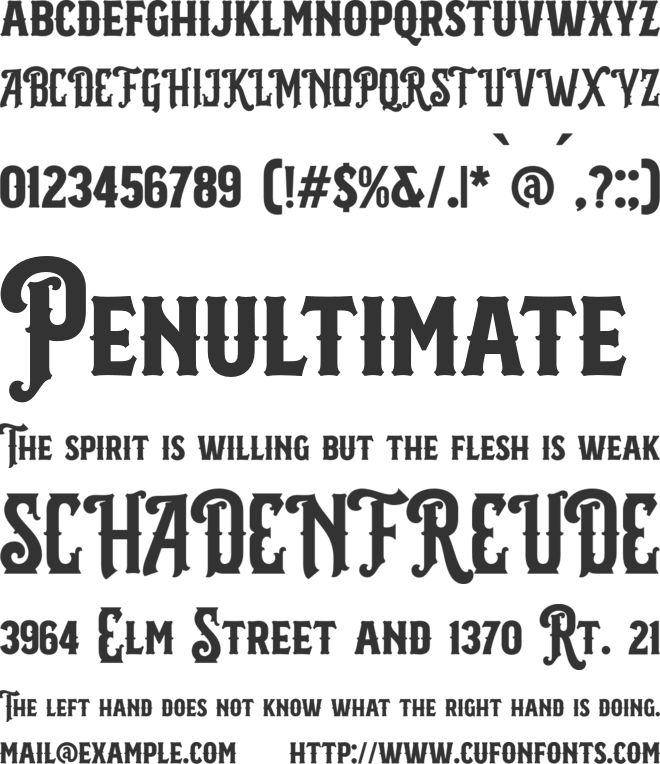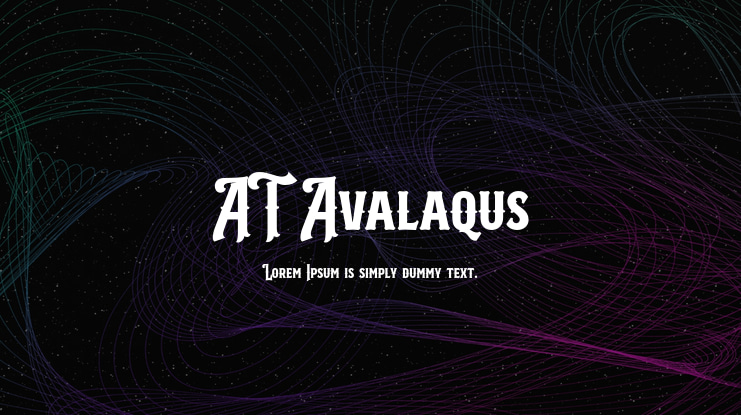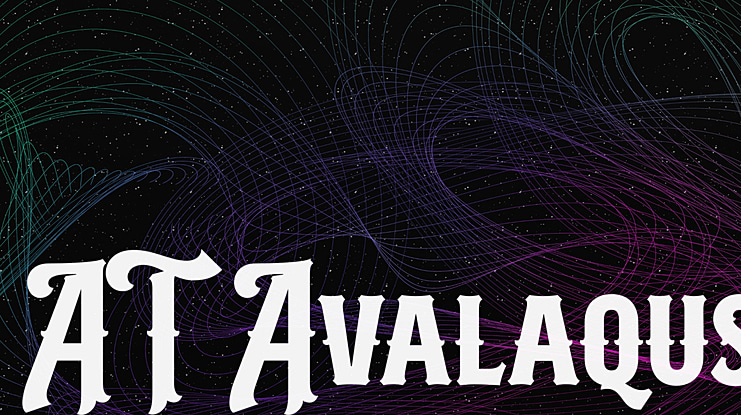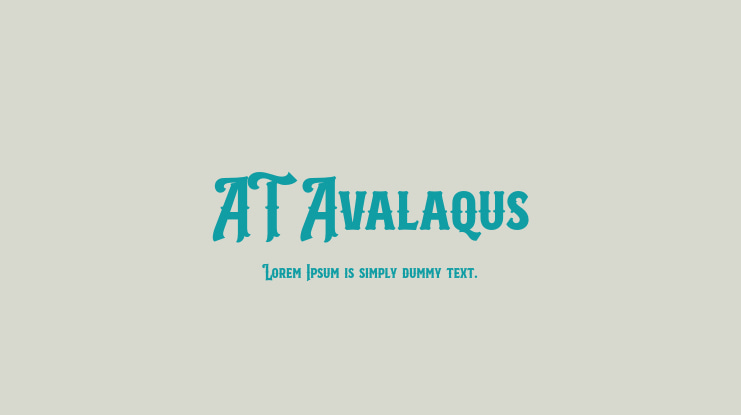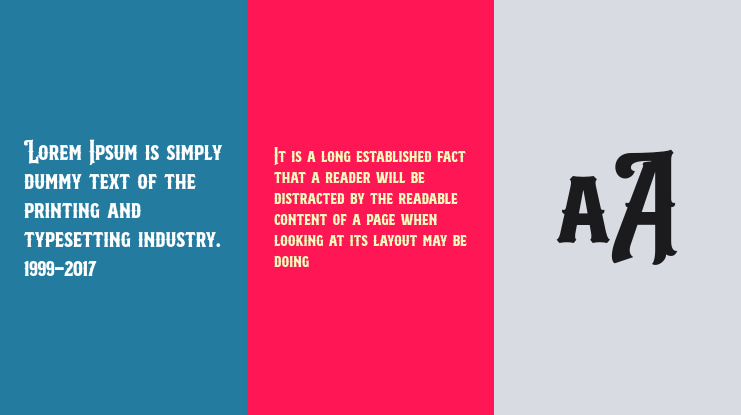
AT Avalaqus Font Family
It's very beautiful to use for displays, such as for clothing designs, labels, packaging, certificates and other letters, sign painting, and much more you can do with this font